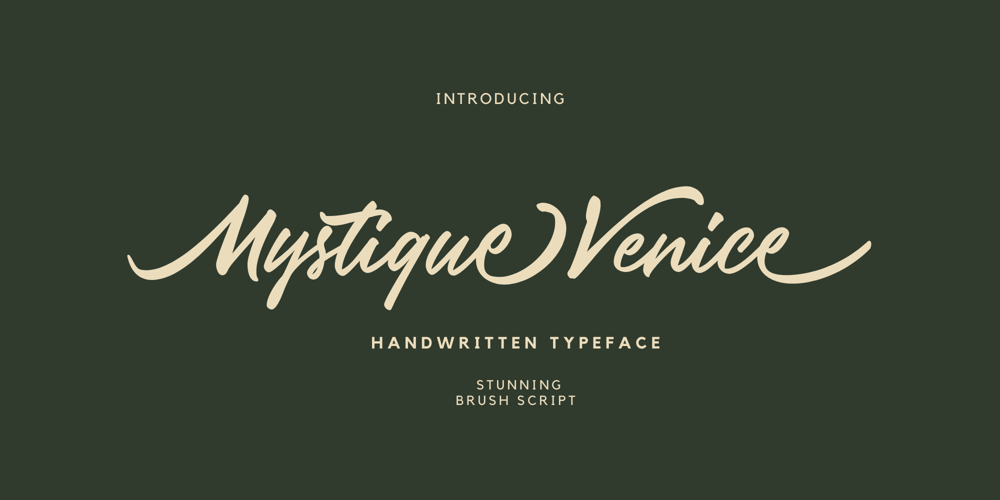
Mystique Venice
Mystique Venice font
Mystique Venice Font Family was designed by Hermansyah and published by Get Studio. Mystique Venice contains 1 styles and family package options. Mystique Venice is a captivating brush script font designed to infuse your projects with an air of elegance and charm. With a distinctive handwriting style, each character exudes a sense of fluidity and spontaneity, adding a personal touch to your designs.The font boasts Opentype features, allowing for dynamic ligatures and alternate characters that enhance its versatility and create a natural, organic flow.